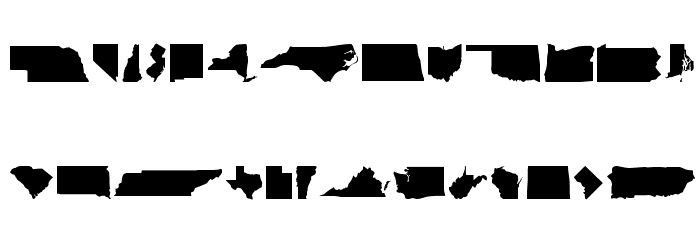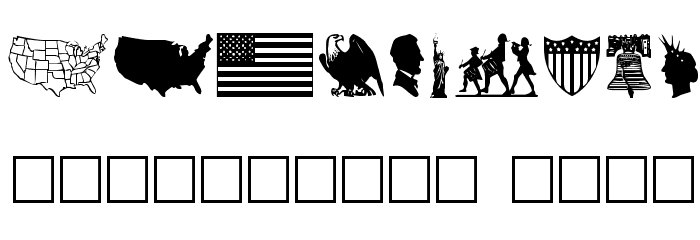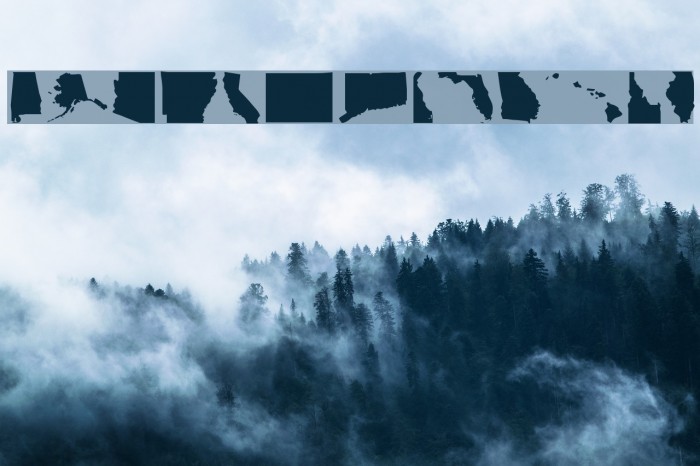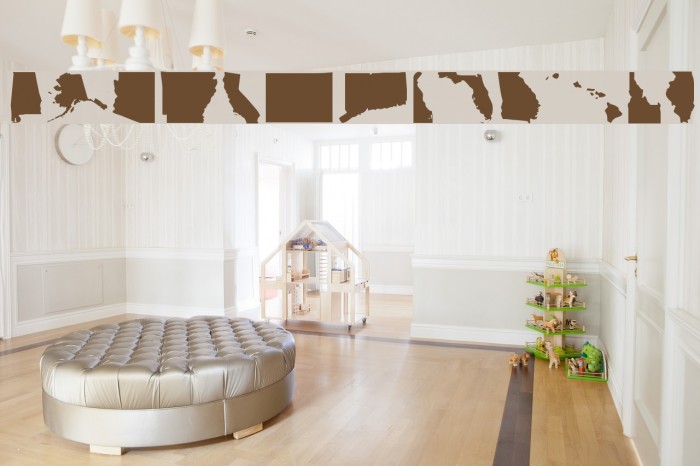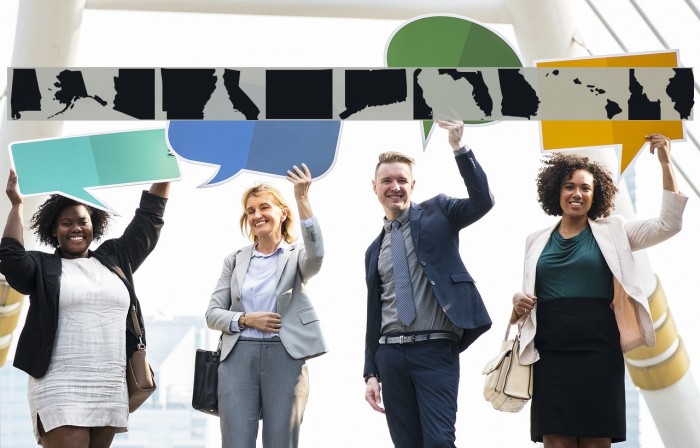
US-Bats Font
This is a decorative font that uses the silhouettes of U.S. states and iconic American symbols to represent characters. Each letter and number is replaced by a state shape, while special characters are depicted using national symbols like the U.S. map, flag, and historical figures. The font is highly thematic, focusing on American geography and patriotism, making it visually distinctive and suitable for projects that require a strong national identity. The characters are bold and filled, providing a solid and impactful appearance.
A decorative font using U.S. state shapes and American symbols for characters.
- Proposed Projects: Ideal for educational materials, patriotic event promotions, travel brochures, and themed graphic designs.
- Use Case: Logos, Posters, Themed Events